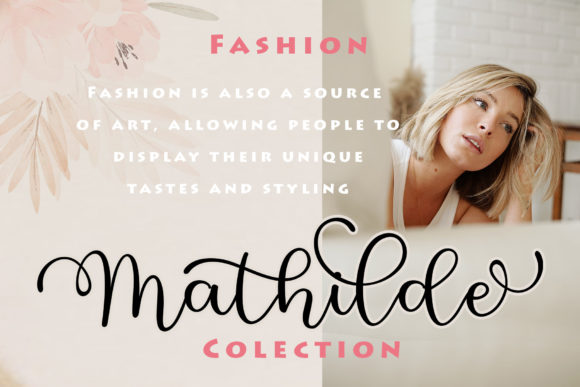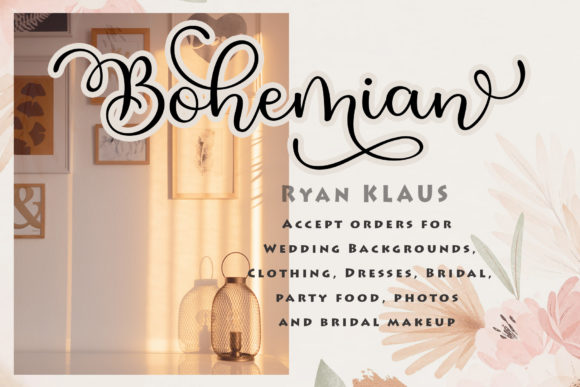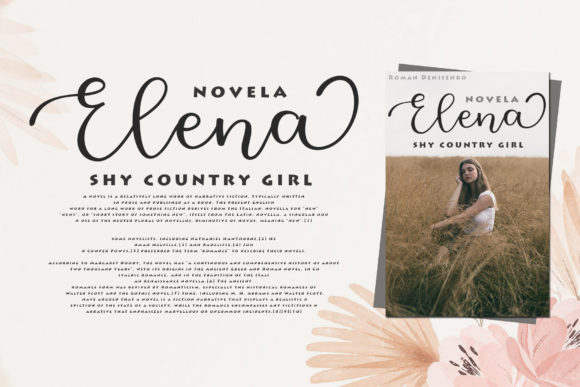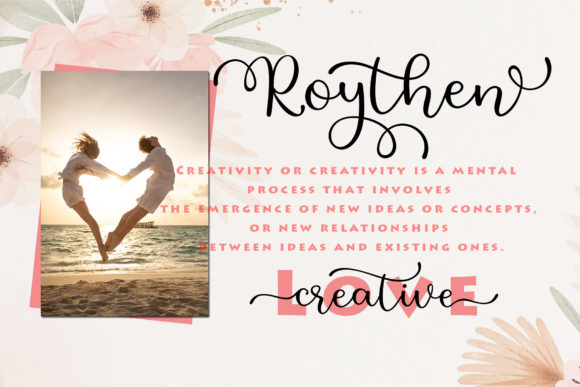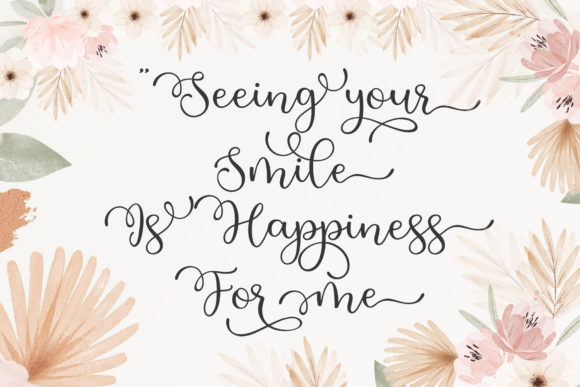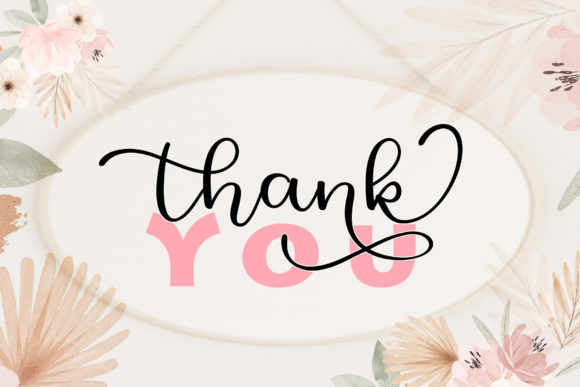
The Perfect Script Font for Your Next Creative Project
Have you ever stared at a blank page, feeling stuck and unsure of how to bring your creative vision to life? For many designers, the struggle is real. But what if you had the perfect tool to help you break through that creative block and craft something truly beautiful? Enter the Centil Font, a stunning script font that’s sure to elevate your next project to new heights.
| 👤 Author | Sulthan Studio |
With its classy, elegant, and modern design, the Centil Font is perfect for logos, branding, invitations, stationery, wedding designs, social media posts, and much more. What makes it truly special is its PUA encoding, which allows you to access all glyphs and swashes with ease. Whether you’re a seasoned designer or just starting out, the Centil Font is a valuable asset that’s sure to take your work to the next level.
Centil Font Key Features
- Unique Characteristics: Centil Font features a unique blend of modern and vintage elements, with a distinctive typographic style that is both elegant and versatile
Centil Font Review
As a designer, I was excited to dive into the Centil Font and see what it had to offer. Here’s my honest take on this font.
- Unique Character Set: Centil Font has a distinct set of characters that add a touch of personality to any design. The unique letterforms and symbols make it stand out from more common fonts.
- Good for Display Text: The font’s bold and playful nature makes it perfect for display text, such as headings and titles. It adds a pop of energy to any design.
- Customizable: Centil Font comes in a range of weights, from light to bold, which allows for a high degree of customization and flexibility.
- May Not Be Suitable for Body Text: While the font is great for display text, it may be too bold and overpowering for body text. It’s best used in moderation.
- May Require Adjustments: Depending on the project, you may need to adjust the font size and leading to ensure readability.
- Not Ideal for Small Text: The font’s bold lines and unique character set can make it difficult to read in small text sizes.
Centil Font is a great addition to any designer’s toolkit. Its unique character set and customizable weights make it perfect for adding a touch of personality to any design. However, it’s essential to use it judiciously, as it may not be suitable for all types of text. With some adjustments, Centil Font can be a valuable asset for any design project.
Common Use Cases for Centil Font
Centil Font is ideal for use in headings, titles, and other display text. It’s also a great choice for use in digital design projects, such as websites, social media graphics, and mobile apps.